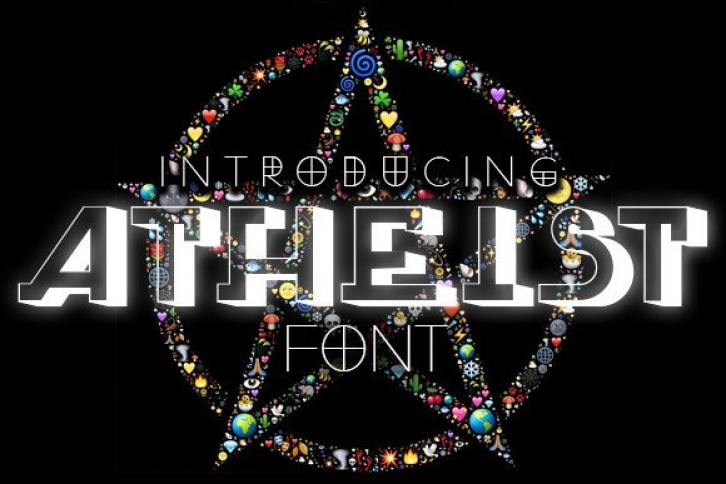
Atheist is an awesome, abstract-looking 3D display typeface. It is perfect for modern projects that need dimensional text, such as posters, flyers, advertisements, etc.